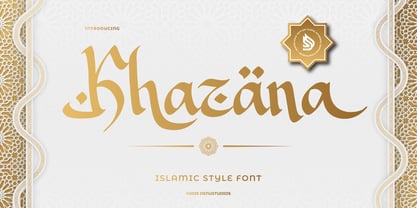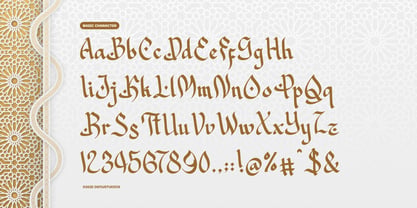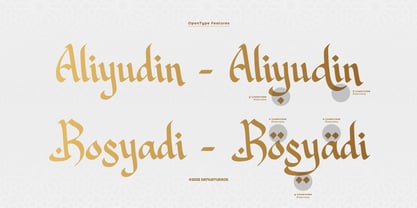
Khazana
The Khazana Font Family was designed by Dede Nugraha and published by Denustudio. Khazana contains 1 styles. More about this family
Khazana | Islamic Style Font, from Denustudios, suitable for any projects such as: logos, branding projects, homeware designs, product packaging, mugs, quotes, posters, shopping bags, t-shirts, book covers, name card, invitation cards, greeting cards, label, photography, watermark, special events, and all your other lovely projects that need Islamic Style Font a taste.
• Alternate and Ligature